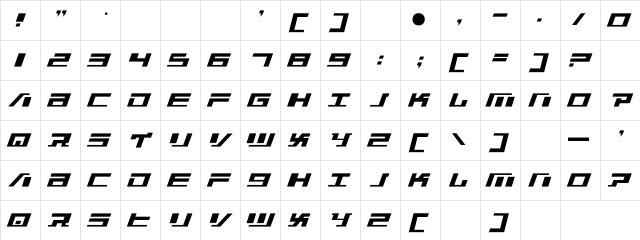
War Machine Regular
War Machine Family
War Machine Regular
Design Context for War Machine
War Machine is a composed and adaptable typeface that performs quietly and consistently across a wide range of design contexts.
Pro Tip: Use War Machine in both headline and body roles to test its range before committing to a single application.